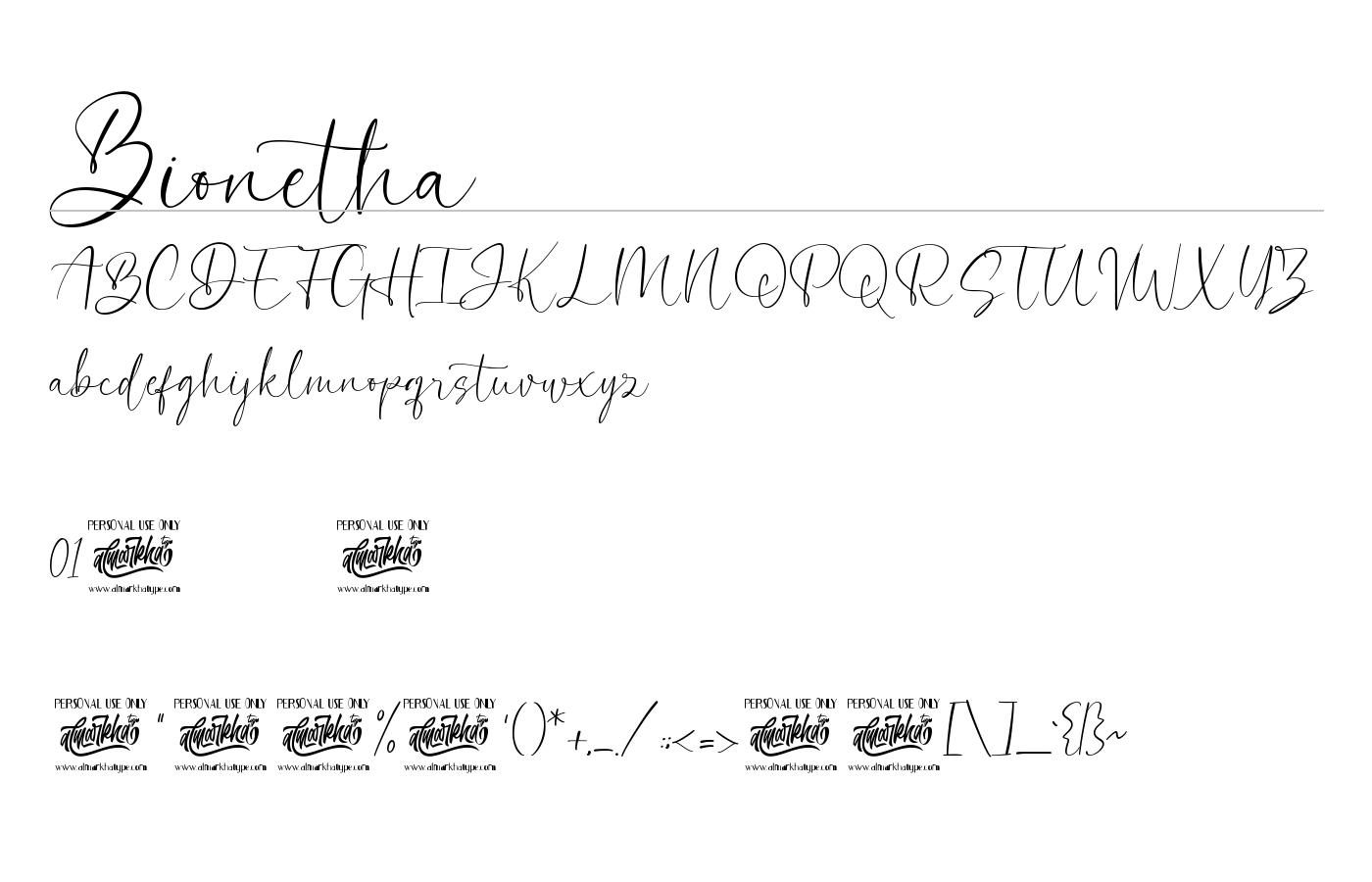
Bionetha is a delicate, elegant script font characterized by thin, flowing lines and graceful letterforms that evoke a hand-drawn, calligraphic style. Its light weight and airy structure make it ideal for feminine branding, invitations, and sophisticated editorial designs where a touch of refined charm is desired. This font works best in decorative contexts such as logos, wedding stationery, and stylish headlines, adding a subtle yet artistic flair to any project.
| Font family | Bionetha Font |
| Designer | Almarkhatype Studio 2021 - Abdul Malik - Ghazi |